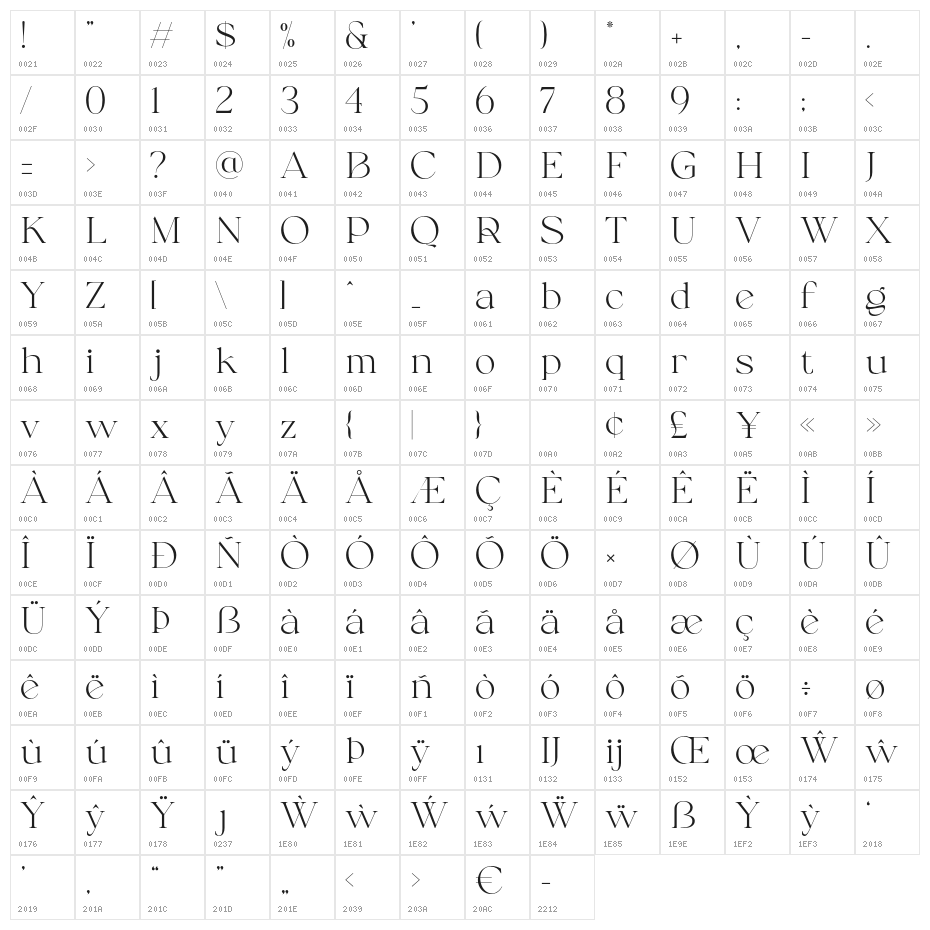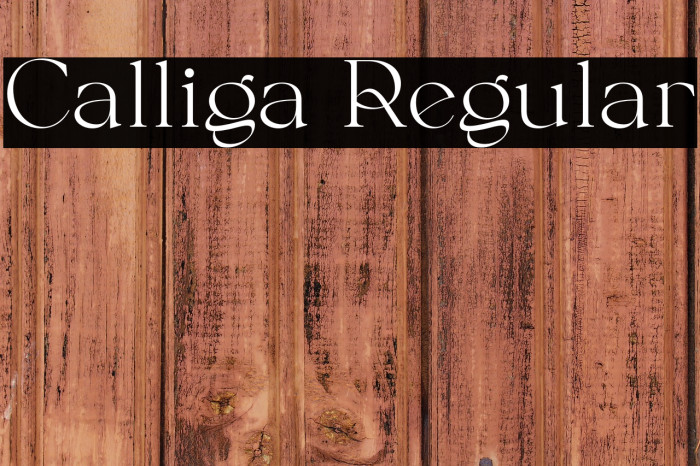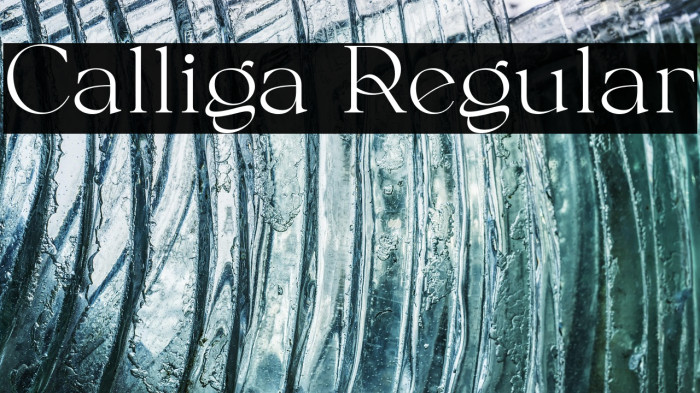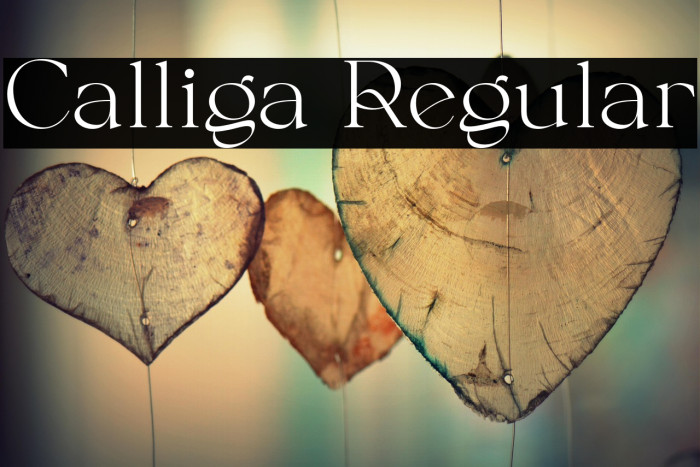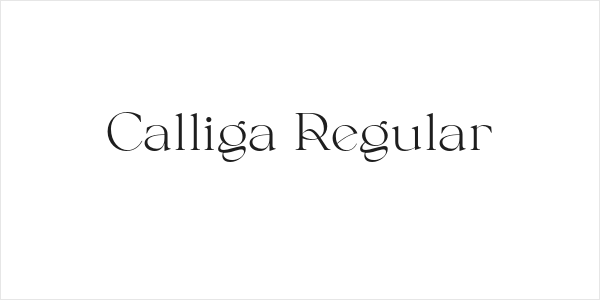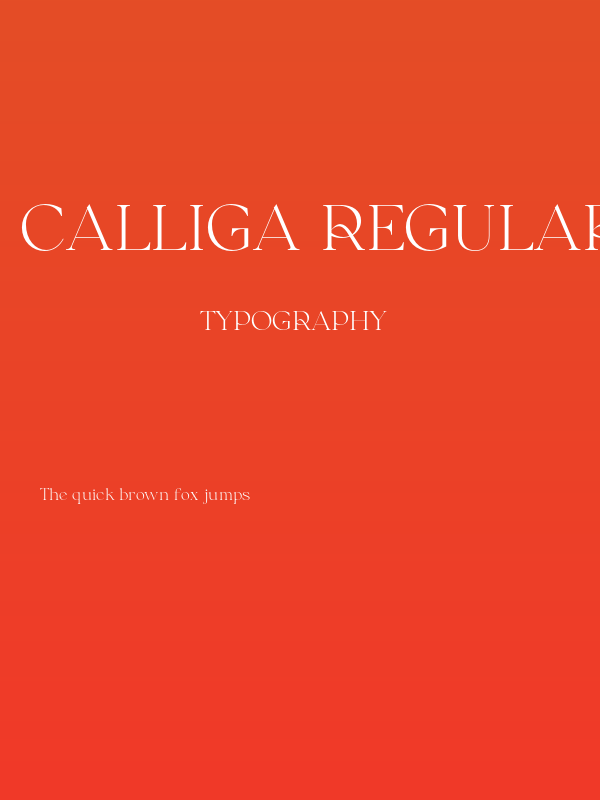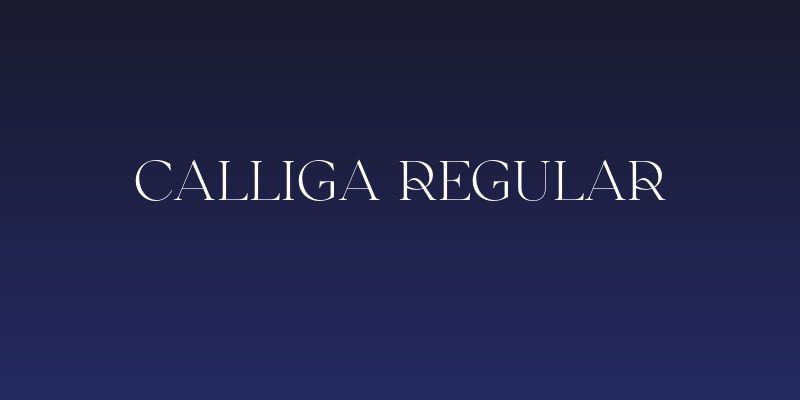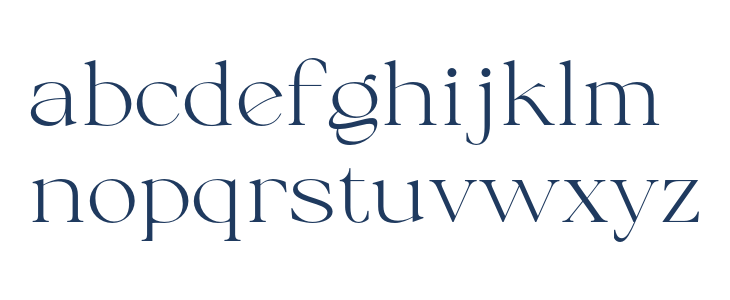
Calliga Regular Font
Calliga Regular Description
This font features a refined and elegant serif style, characterized by its thin, elongated strokes and high contrast between thick and thin lines. The uppercase letters exhibit a classic and sophisticated appearance, while the lowercase letters maintain a graceful flow with subtle curves. The numerals are designed with a consistent height and a touch of elegance, making them suitable for formal contexts. Special characters are crafted with attention to detail, enhancing the font's overall aesthetic. The font's design is ideal for projects that require a touch of sophistication and class.
| Overall Style | Classic |
| Use Case | Headlines, Logos, Editorial design |
| Proposed Projects | Ideal for wedding invitations, luxury branding, editorial design, and high-end product packaging. |